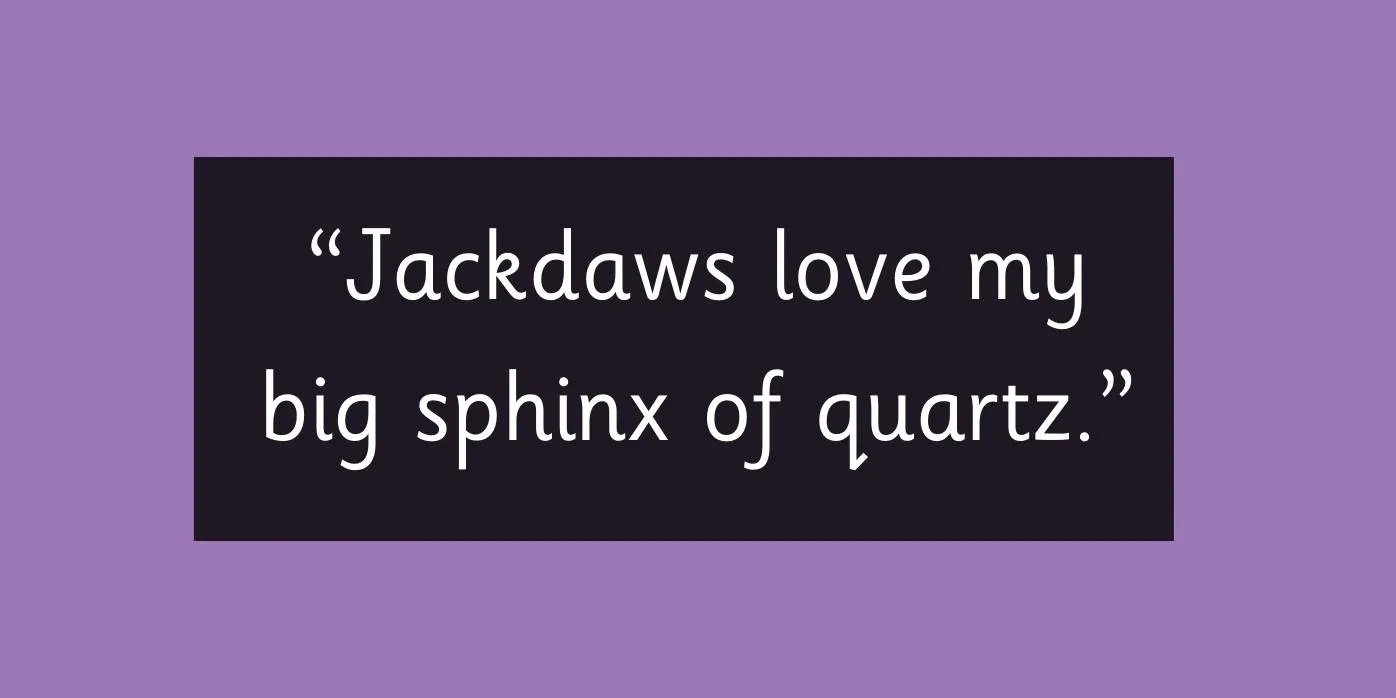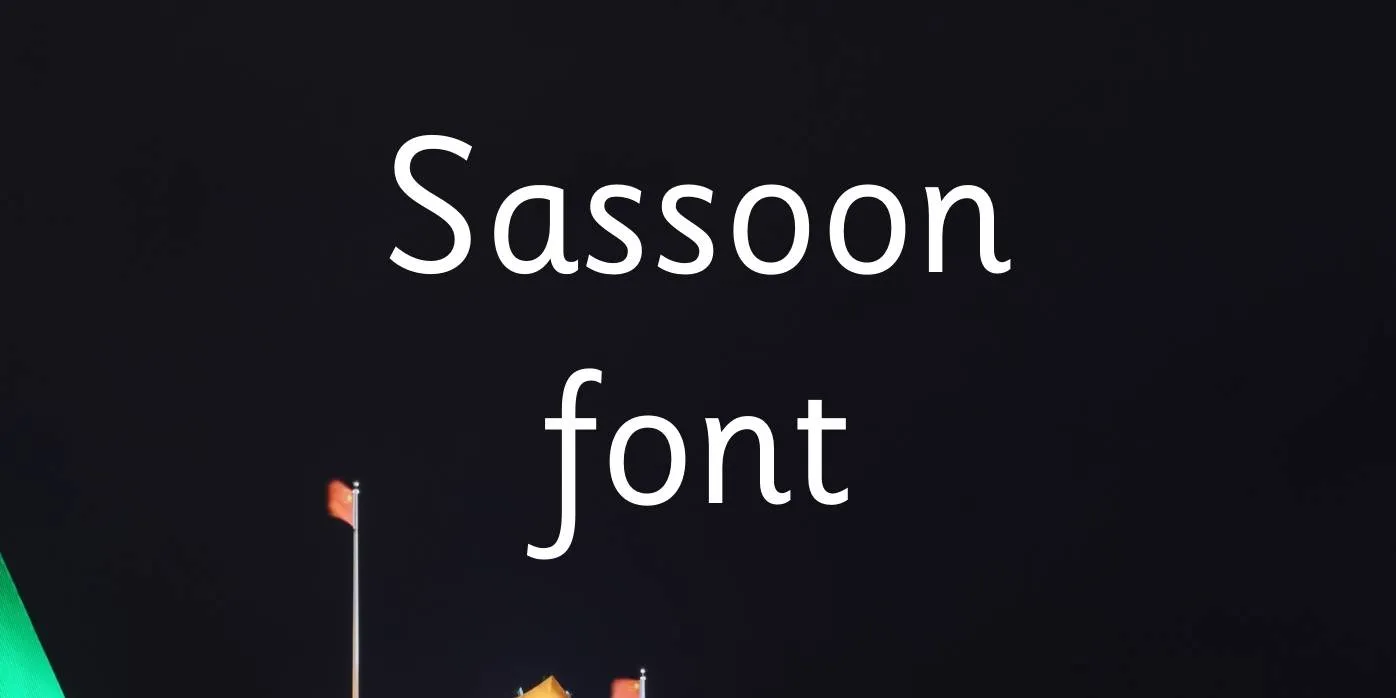
Sassoon Font
We present a popular typeface that is famous with the name Sassoon Font. It was developed and published by Adrian Williams. It belongs to the geometric sans-serif typeface. It is available for both digital and print use.
This amazing typeface has a very long history. Adrian Williams created it in the late 1980s, based on a design by Edouard Hoffmann from the 1920s. This typeface was originally created for educational purposes. It was intended to be a simple, clean, and readable typeface that would be easy for children to learn to read.
However, this Font quickly gained popularity with designers and was soon being used for a variety of purposes. It is also suitable for Adobe and CorelDRAW. Also used its similar typeface for more designs which are Circular Font. This Font is now a very popular typeface and is used by many companies and organizations all over the world.
It is still used for educational purposes and others. It comes in different styles and weights, which makes it very versatile. This typeface is perfect for any project that needs a simple, clean, and modern look. You can download this typeface from our websites, and used it in your projects.